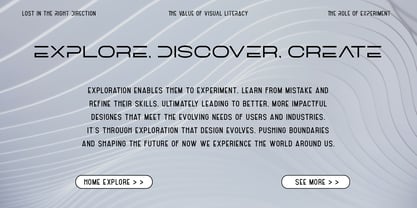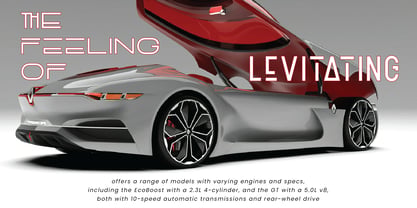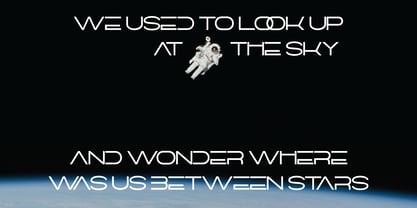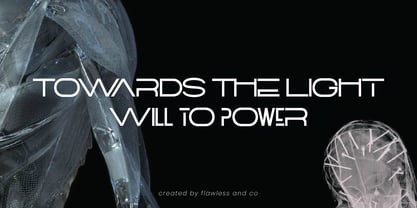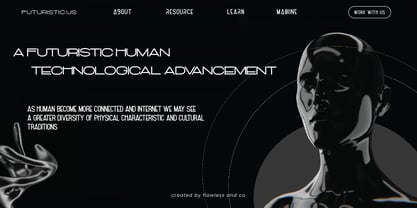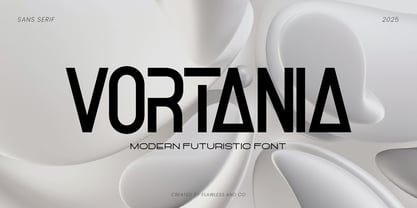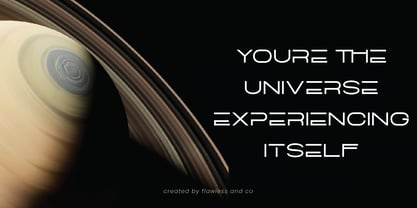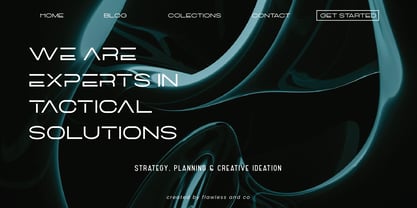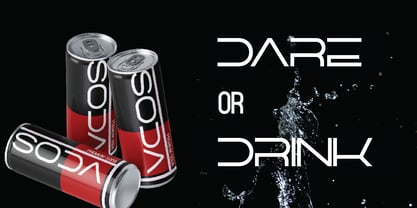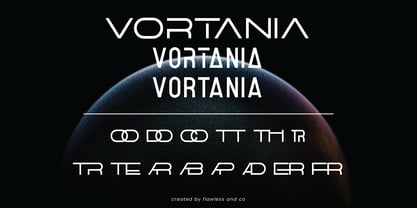
Vortania
The Vortania Font Family was designed by Achmad Yani and published by Flawlessandco. Vortania contains 1 styles. More about this family
Vortania is a sleek modern futuristic font designed for creatives and brands who want to make a bold, forward-thinking statement. With clean lines, sharp angles, and minimalist geometry, it combines cyberpunk flair with contemporary elegance — perfect for tech startups, gaming logos, sci-fi posters, app interfaces, and digital branding. Equipped with all-caps and lowercase letters, alternates, ligatures, and multilingual support, Vortania offers versatility and innovation in one stylish package. Whether you're crafting logos, packaging, or editorial visuals, this font delivers clarity, impact, and a visionary edge that makes your brand stand out. Features : Multilingual, Uppercase alphabet A-Z, Lowercase alphabet a-z, Numbers 0-9, Some punctuation, Alternates & Ligatures NOTE: For all the characters are also available, accessible in the Adobe Illustrator Glyphs Panel, or in Adobe Photoshop Character Open Type Panel. If you need help, just write me! Thanks so much for checking out my shop!